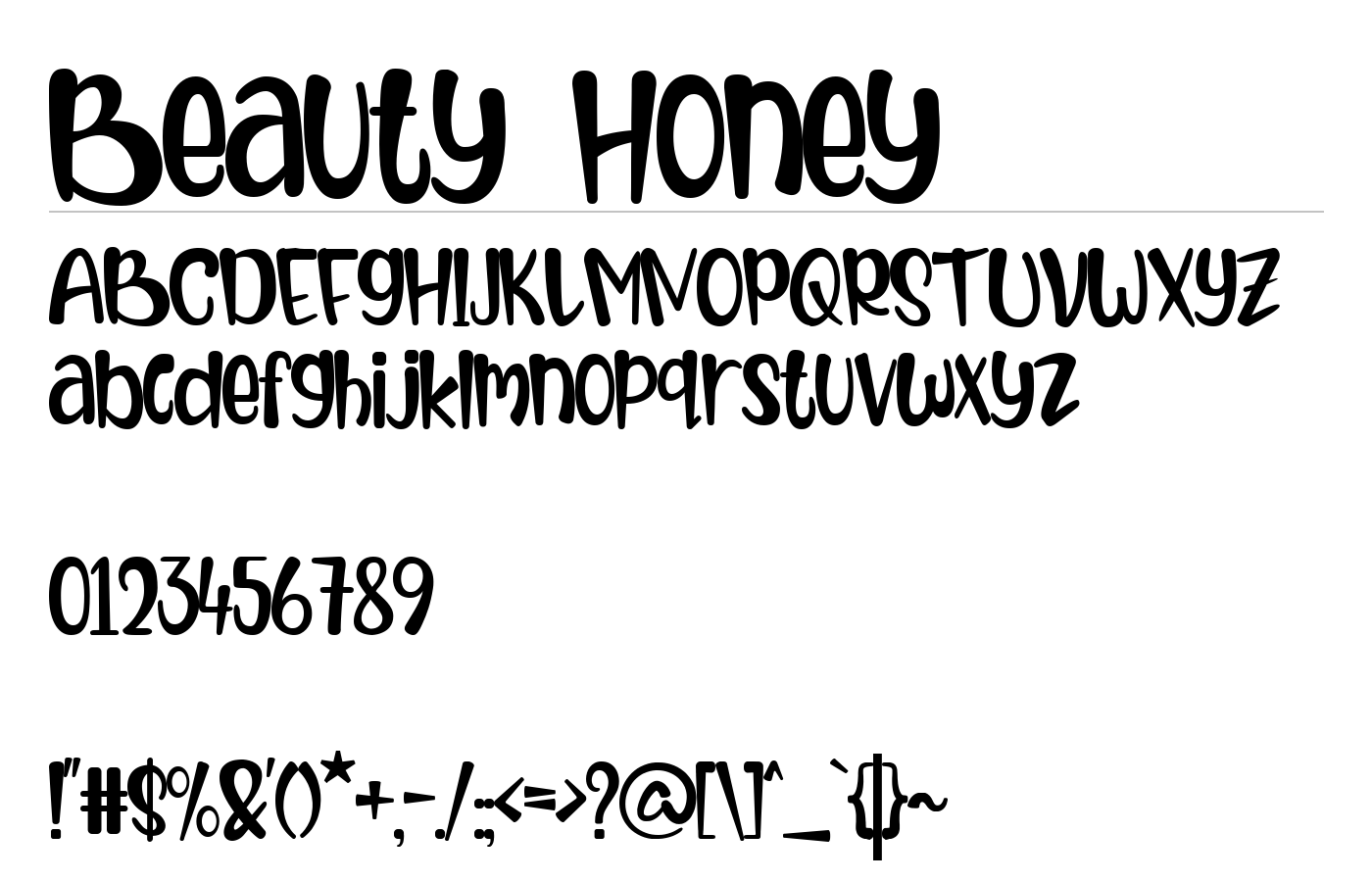
Beauty Honey is a playful, hand-drawn sans serif font with a casual, friendly vibe. Its slightly tall, rounded letterforms and irregular strokes give it a youthful, whimsical feel, making it perfect for creative projects, children’s branding, and informal headlines. This font works well where a fun, approachable style is needed to add charm and personality.
Beauty Honey Font
About Beauty Honey Font
| Font family | Beauty Honey Font |
| Designer | Ade Santani |